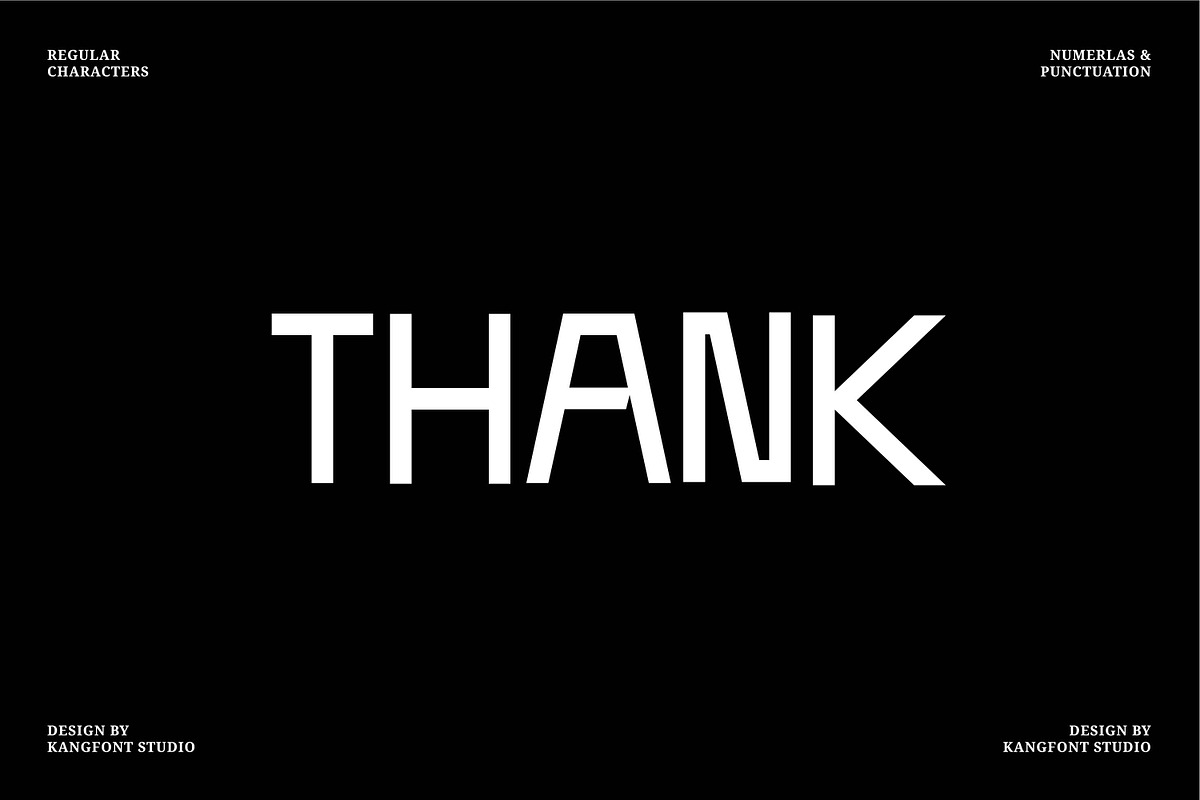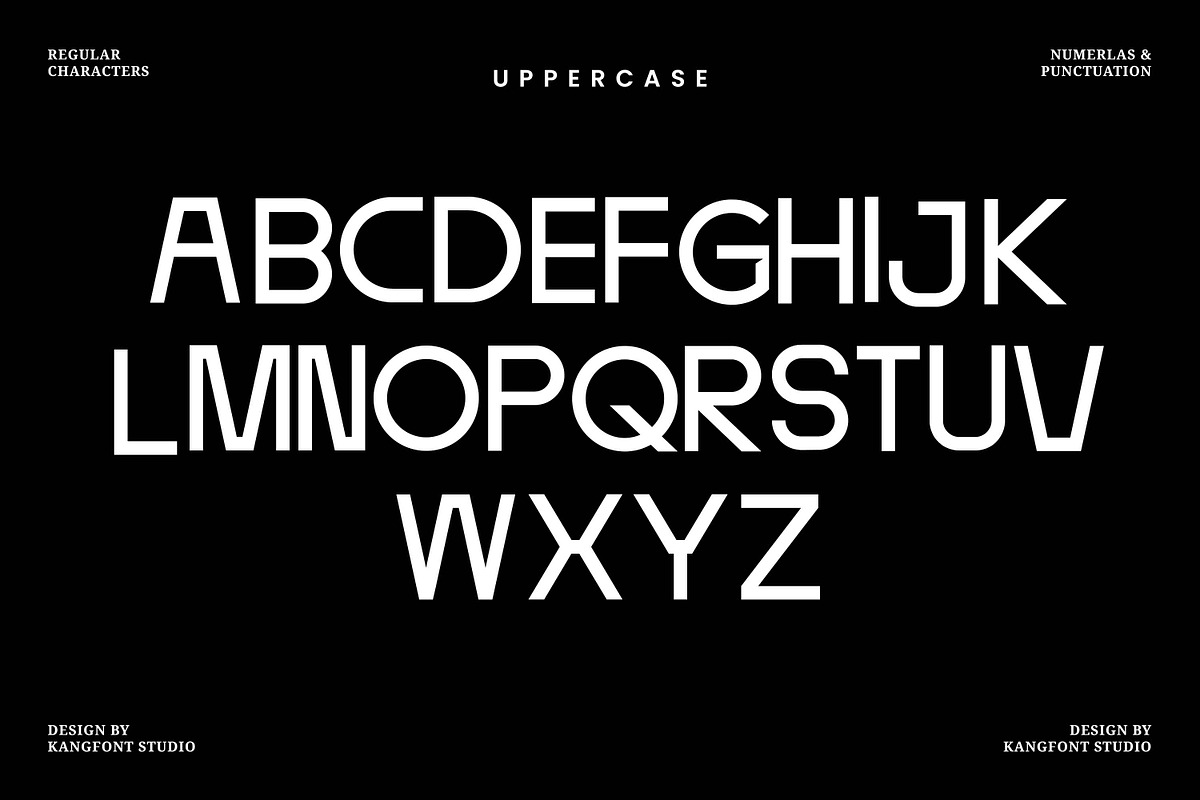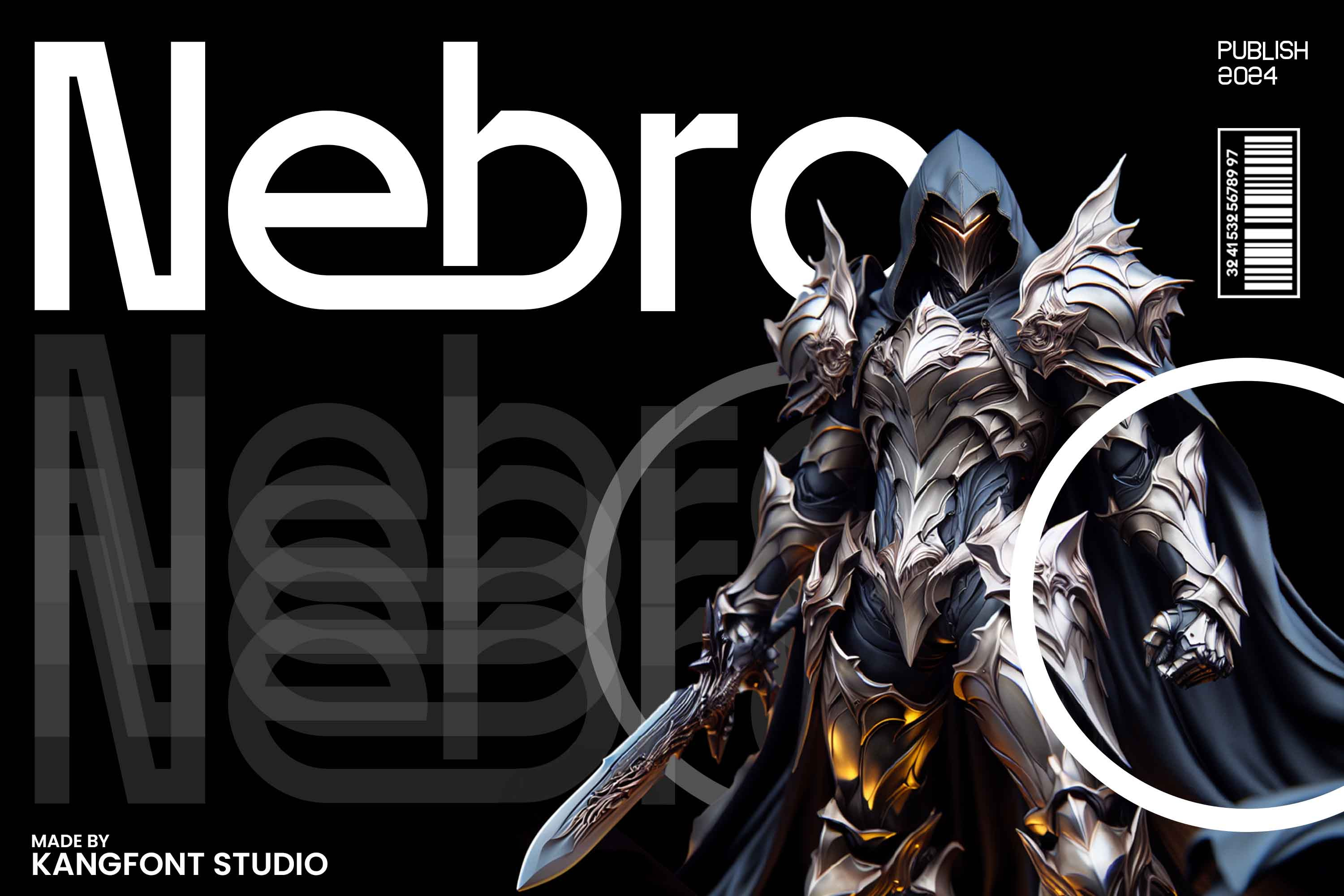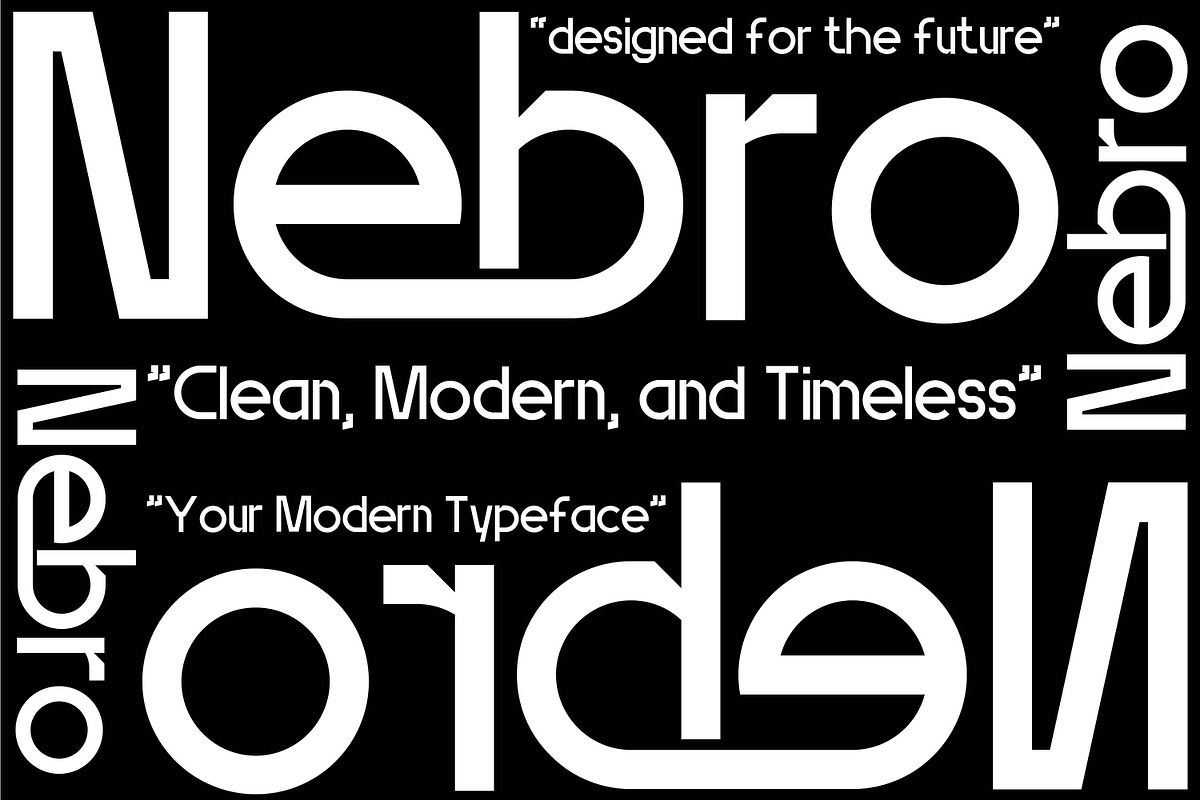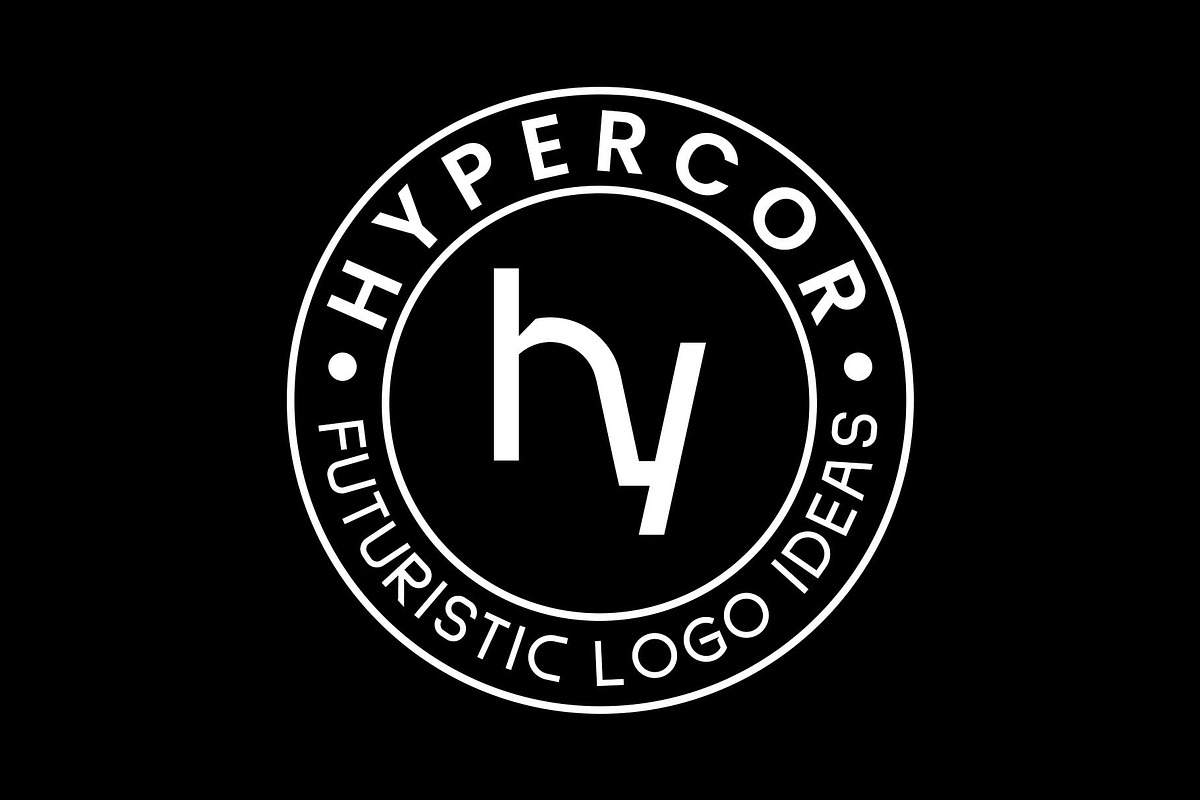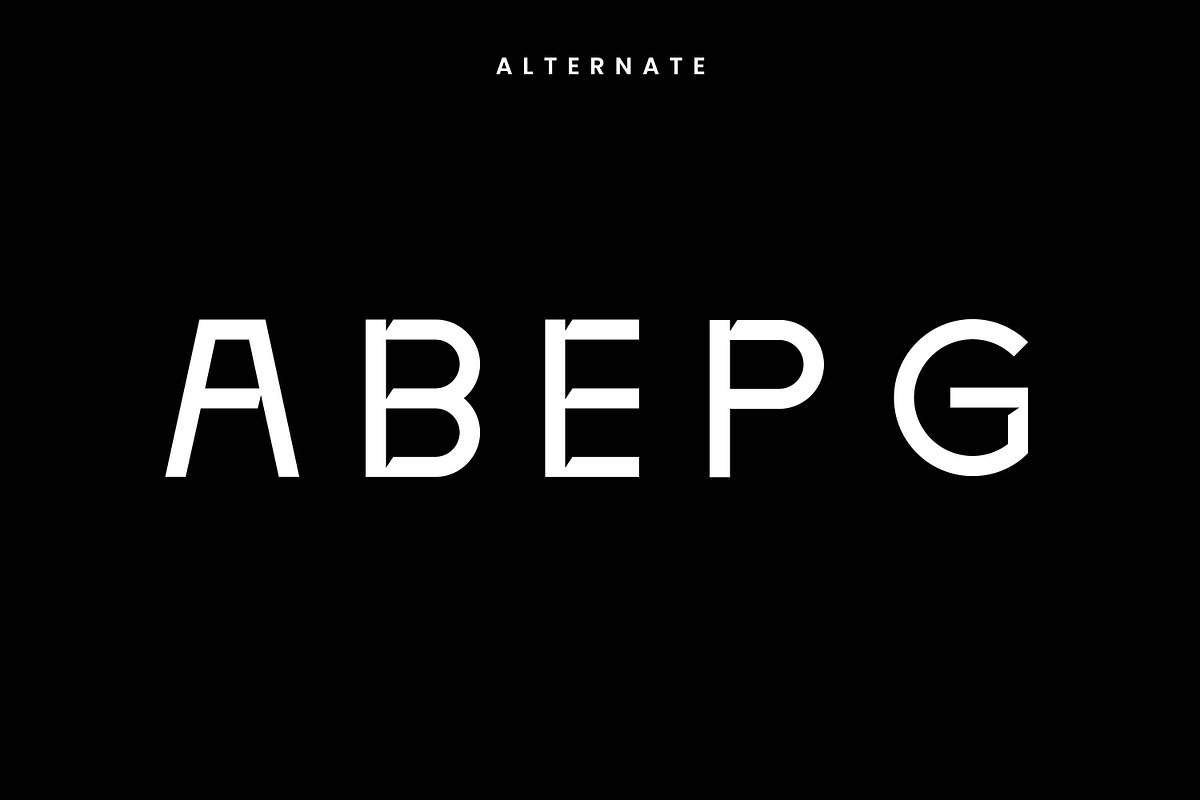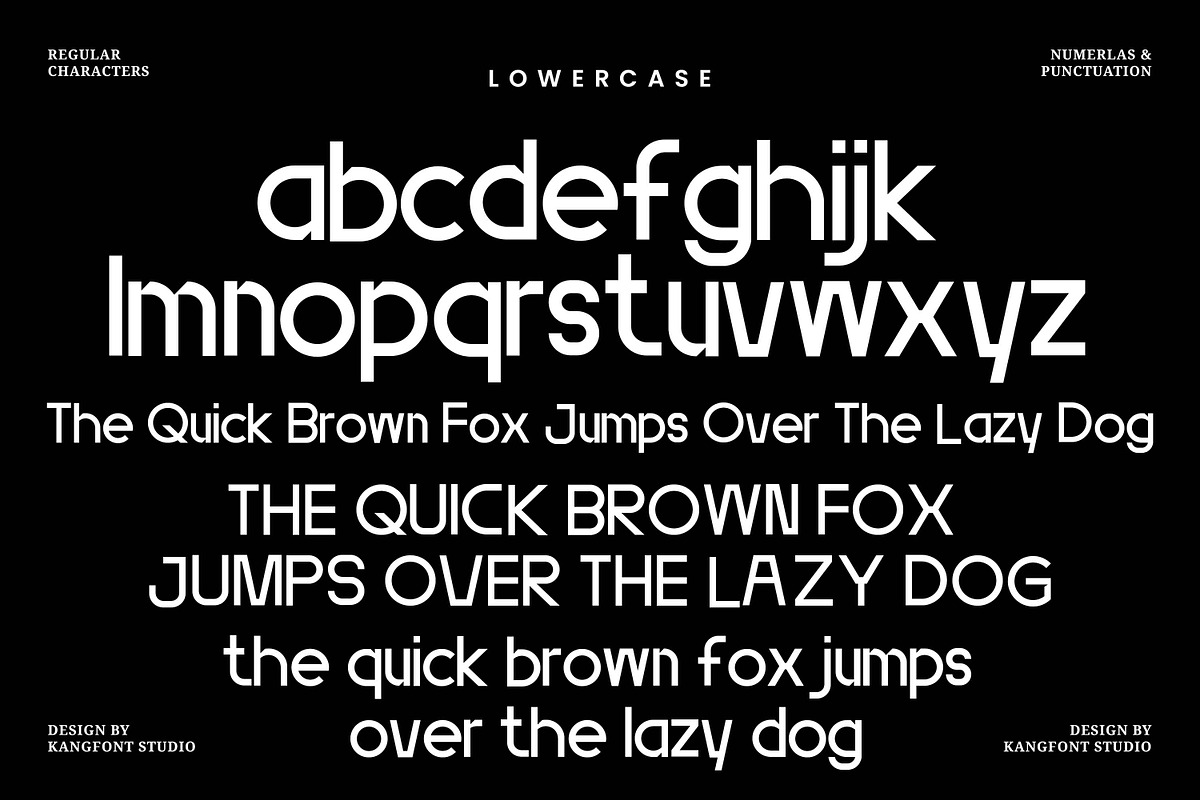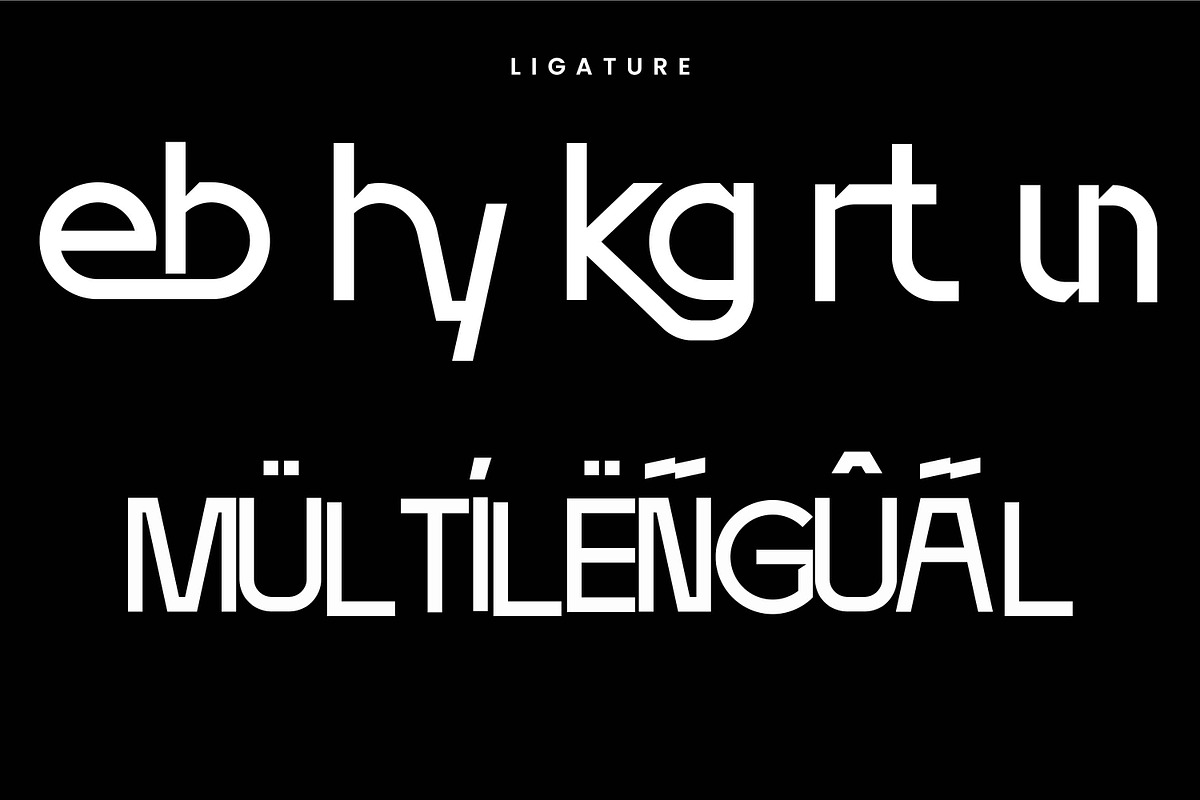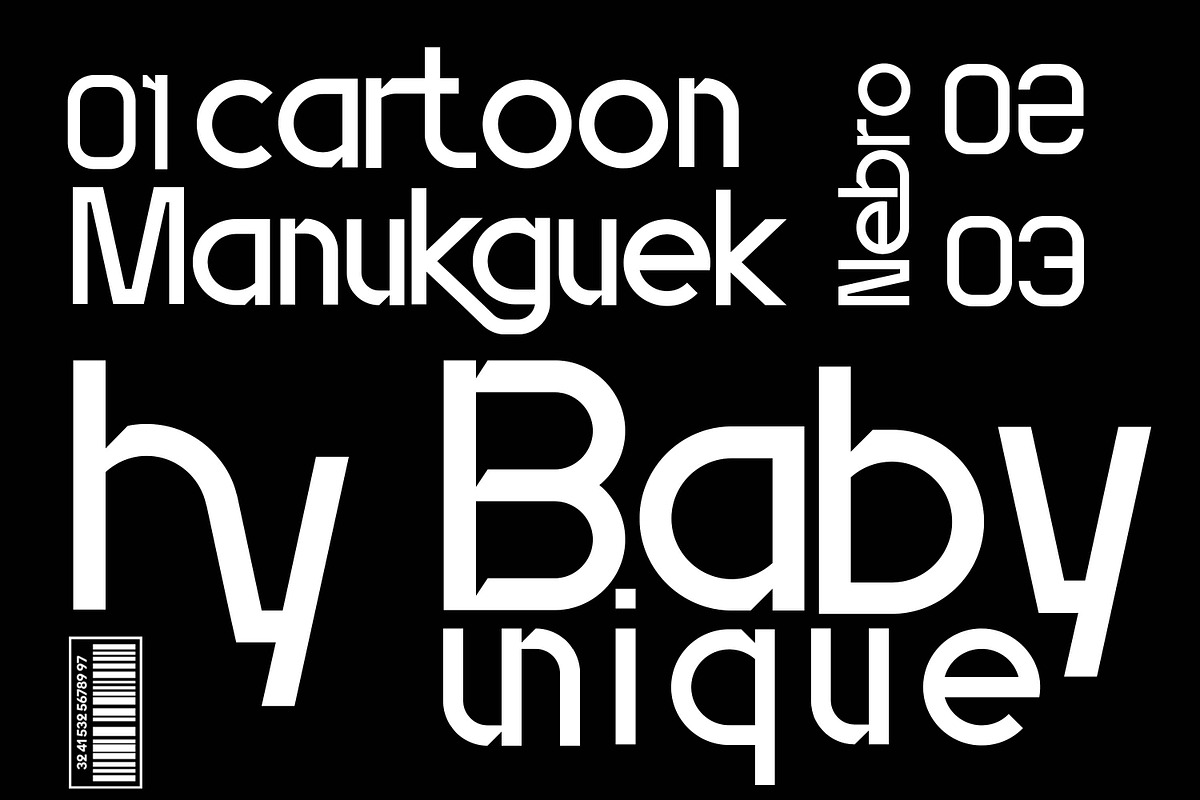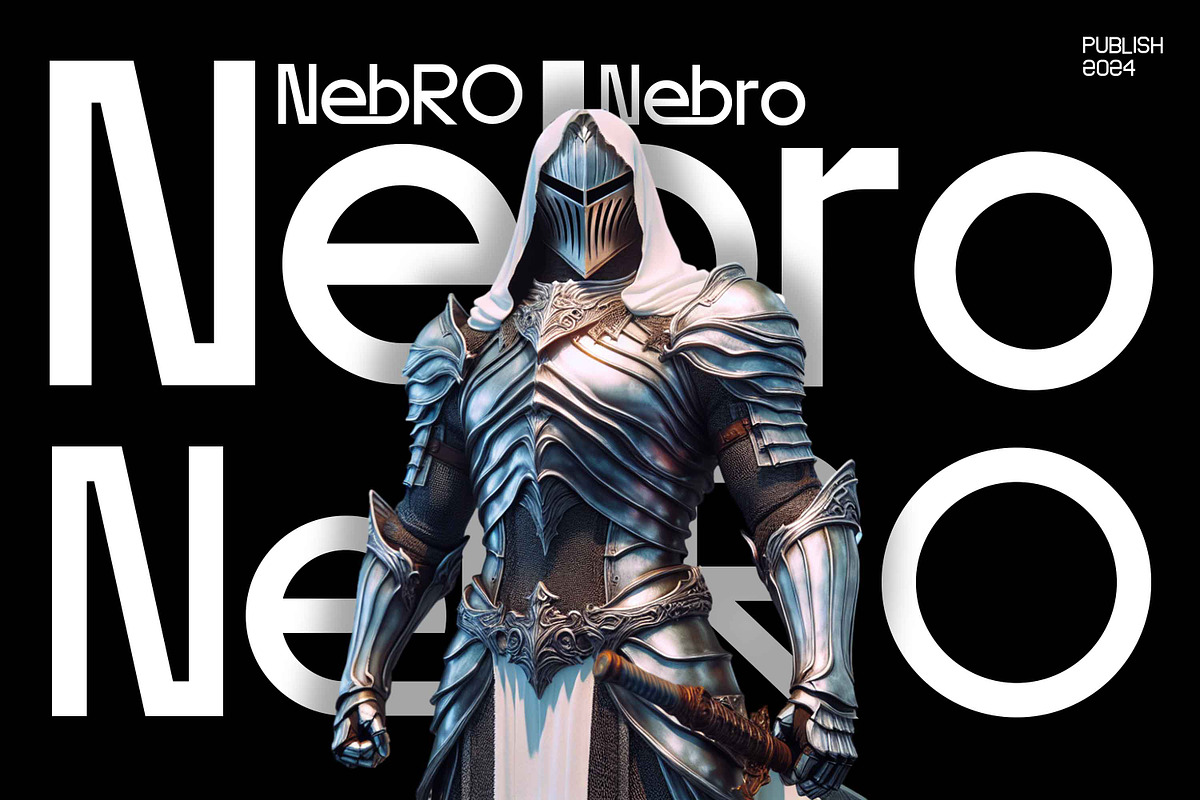
Nebro – Sans Serif Font
Nebro Font is a modern, futuristic typeface designed to make a bold statement. With its sleek geometric lines and elegant curves, it’s perfect for branding, logos, posters, book covers, and tech-inspired designs. Versatile and impactful, Nebro brings sophistication and innovation to any project.
- Ligature & Stylistic alternate